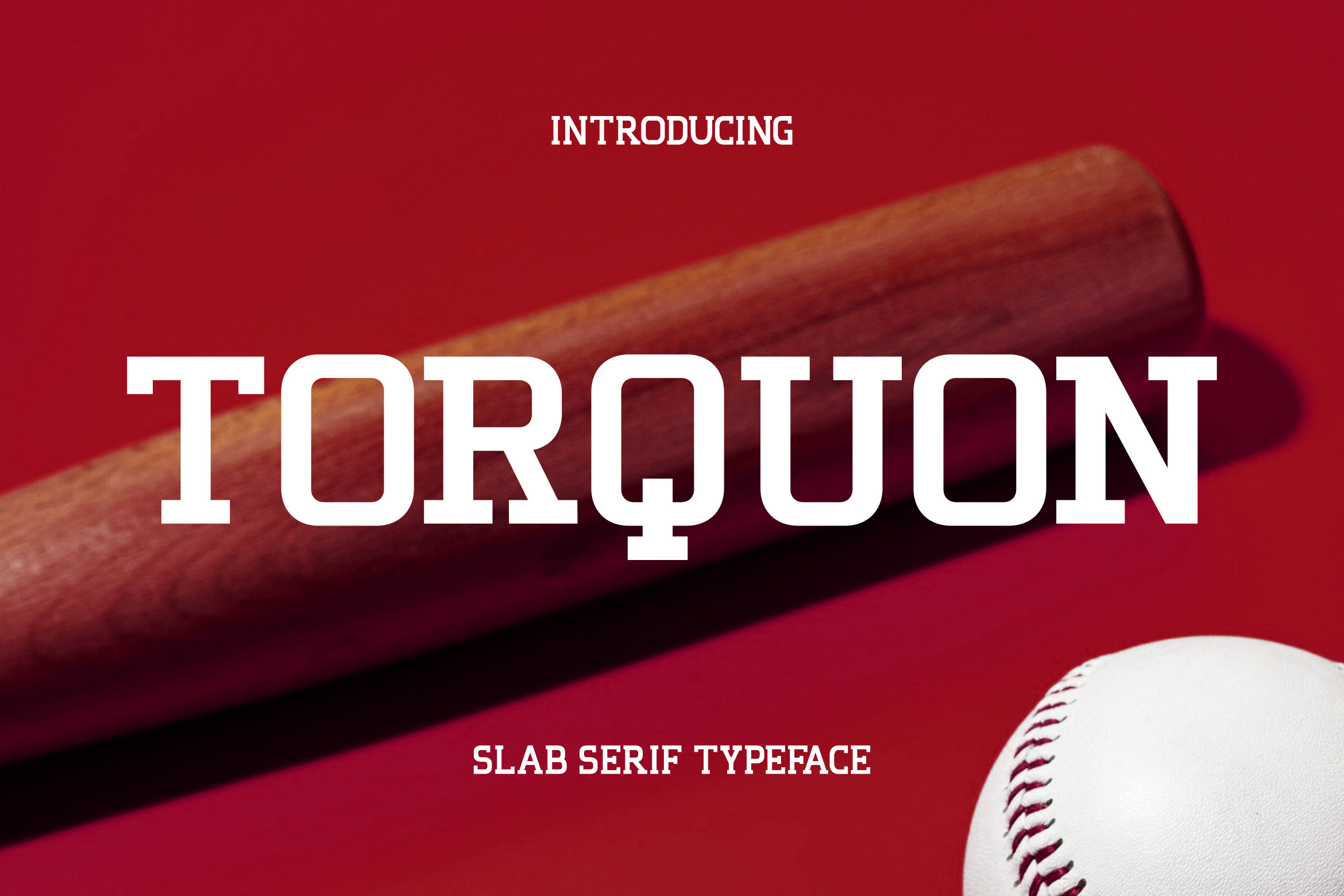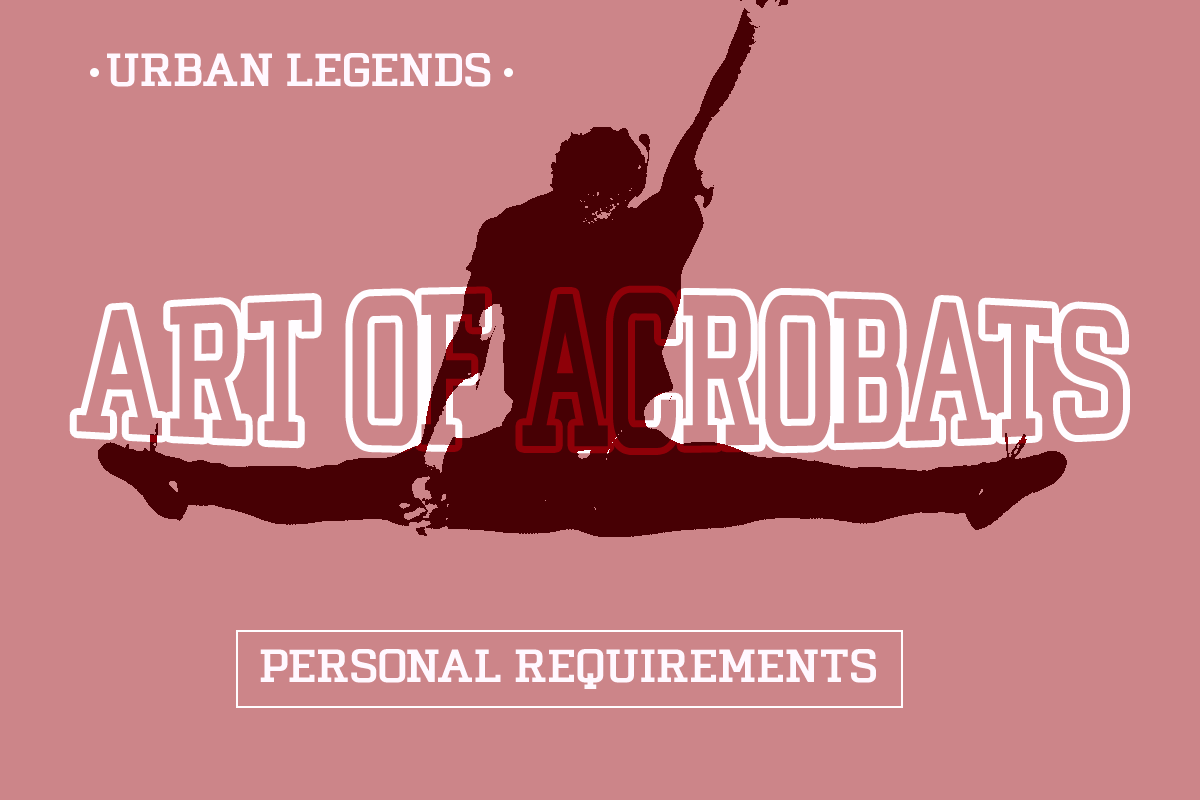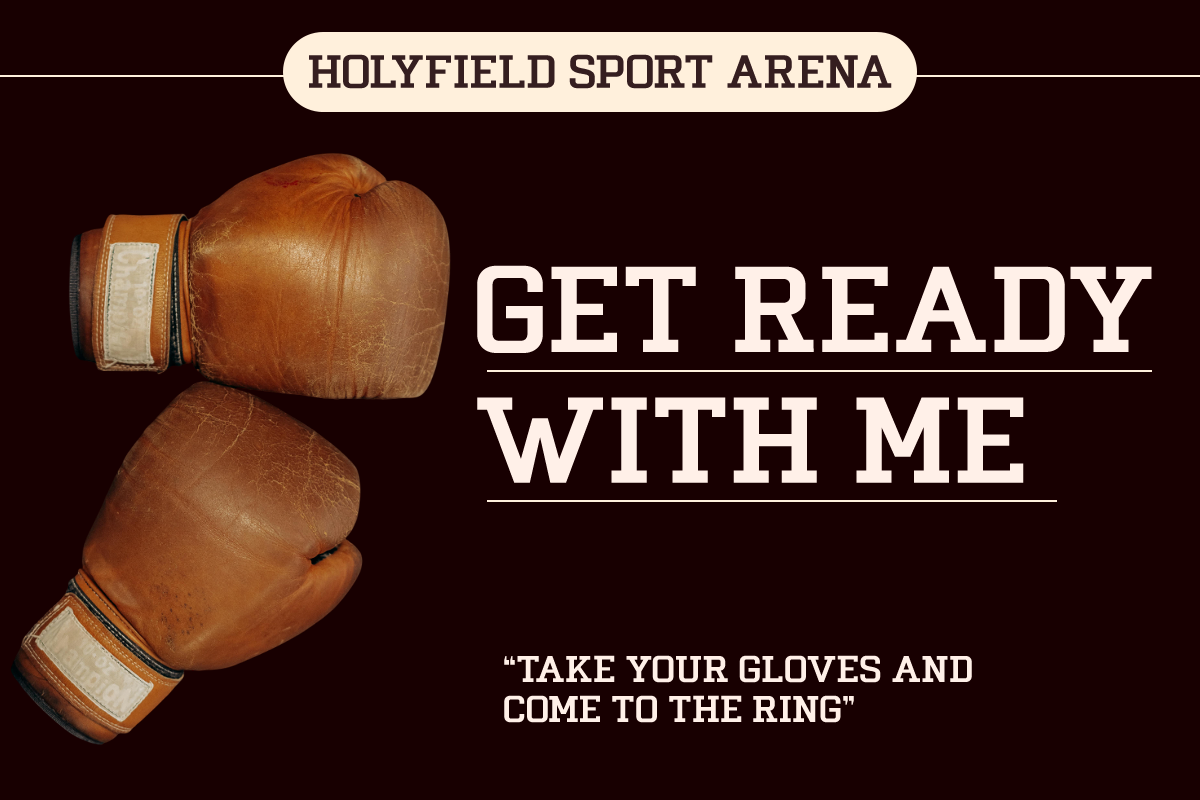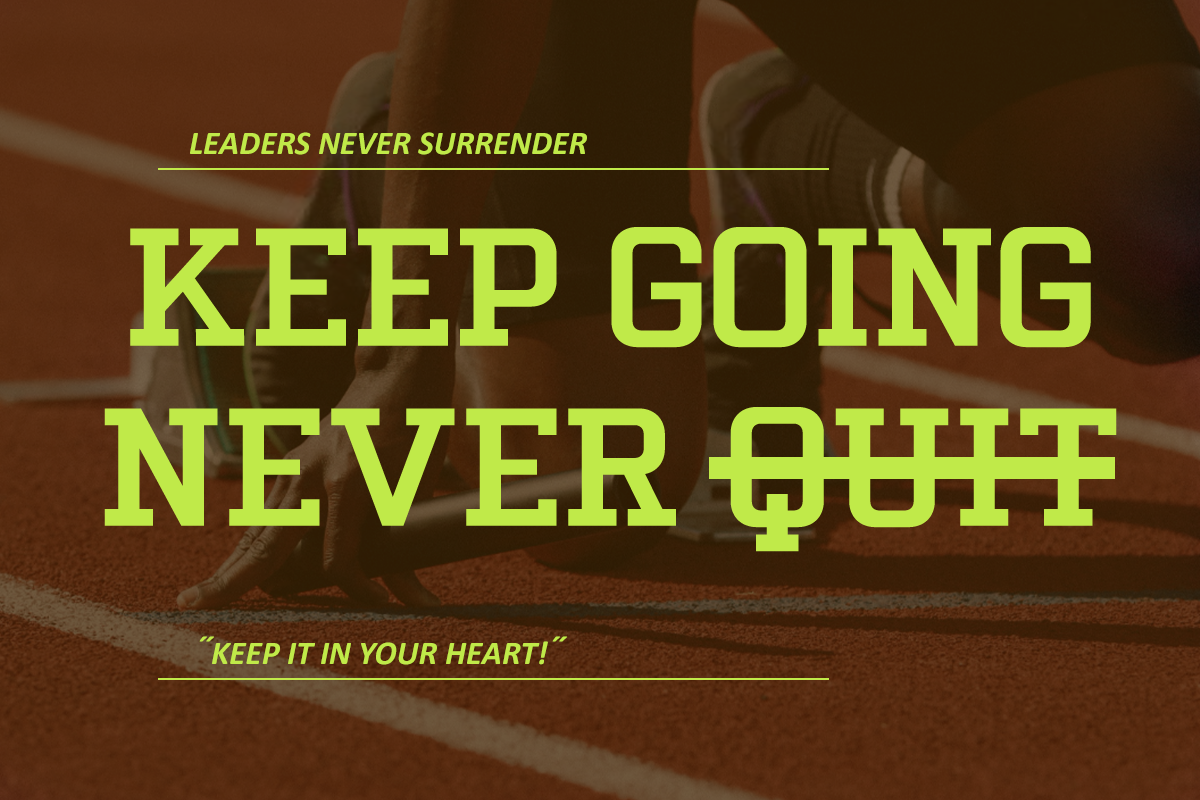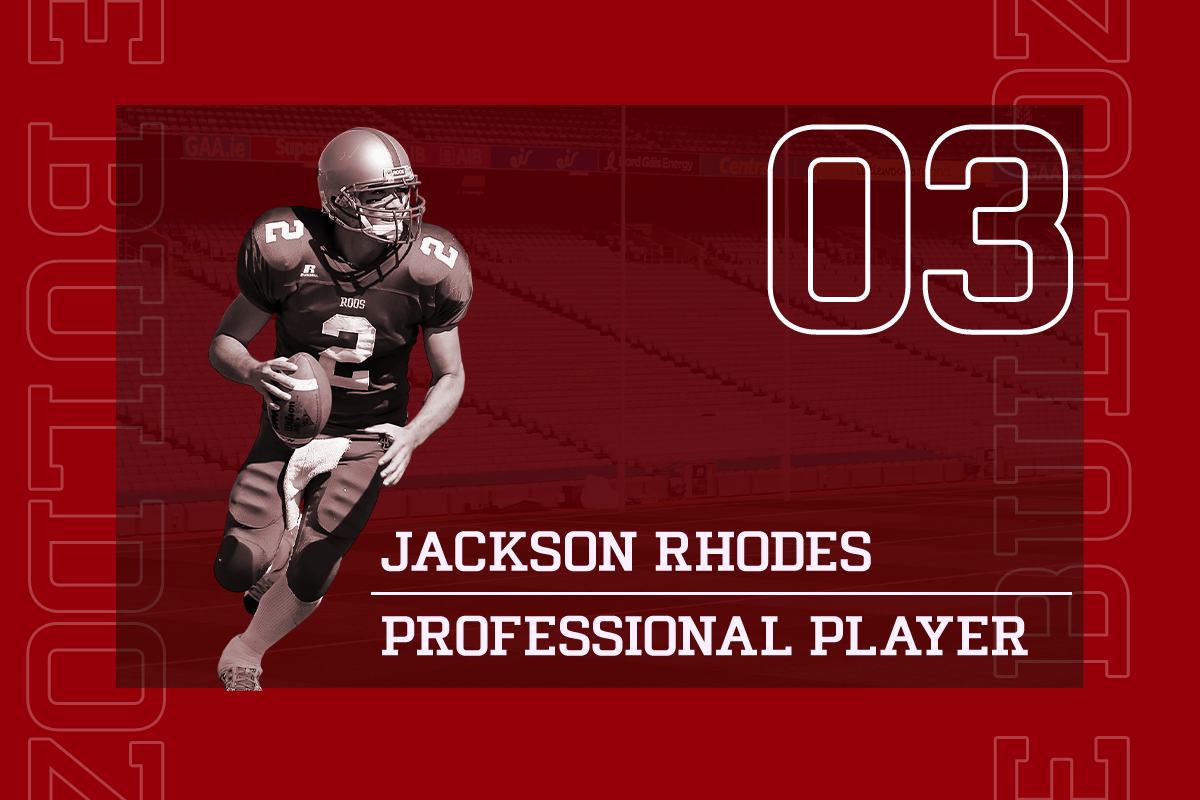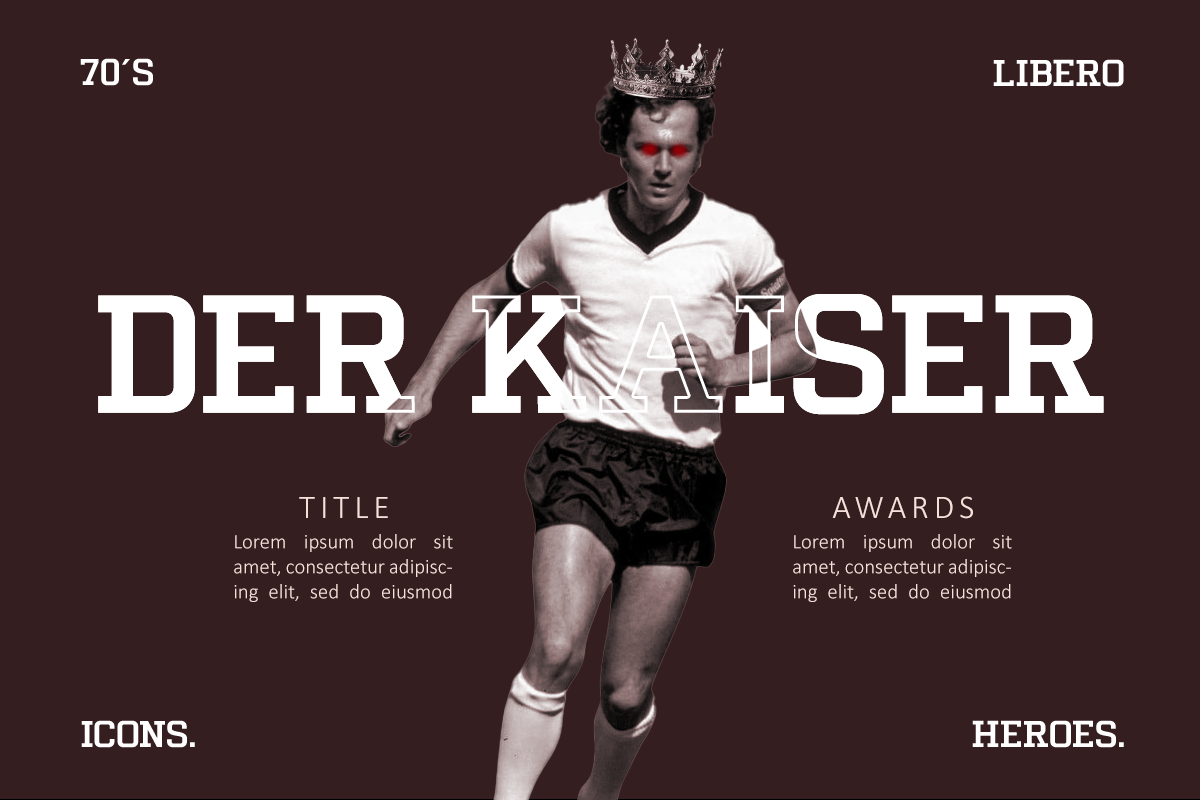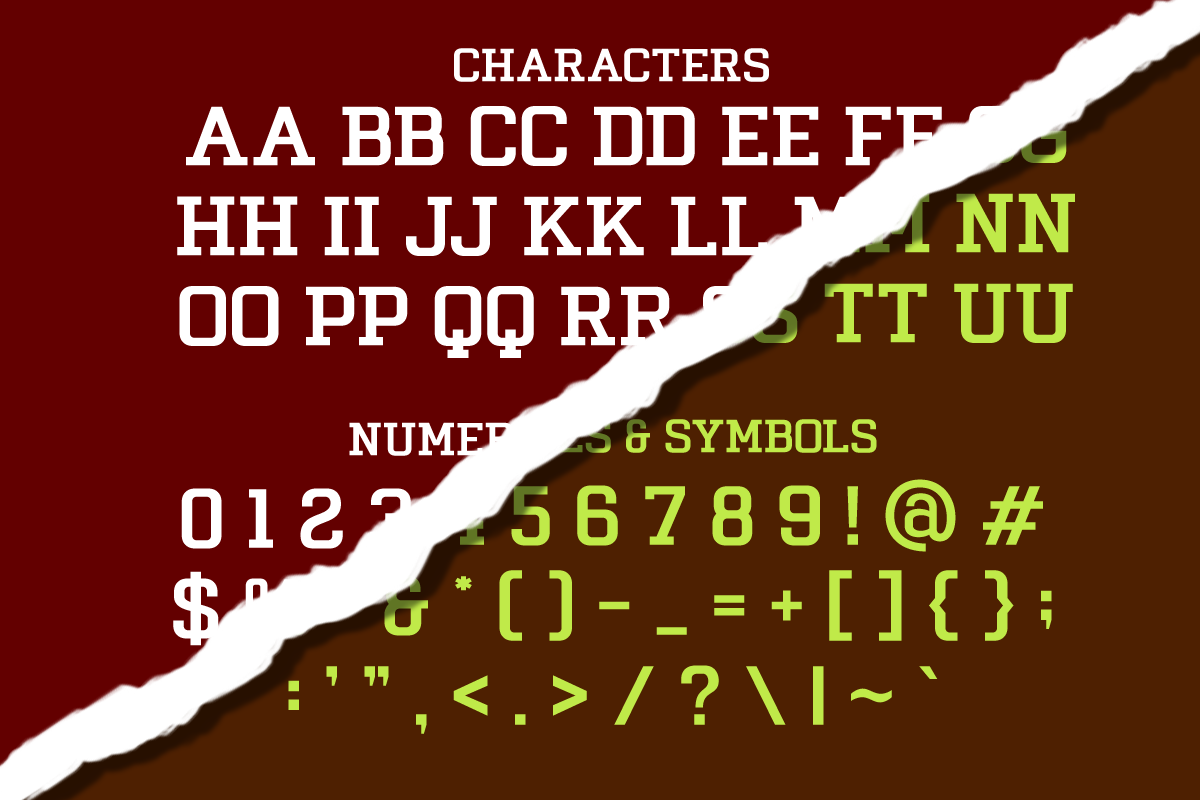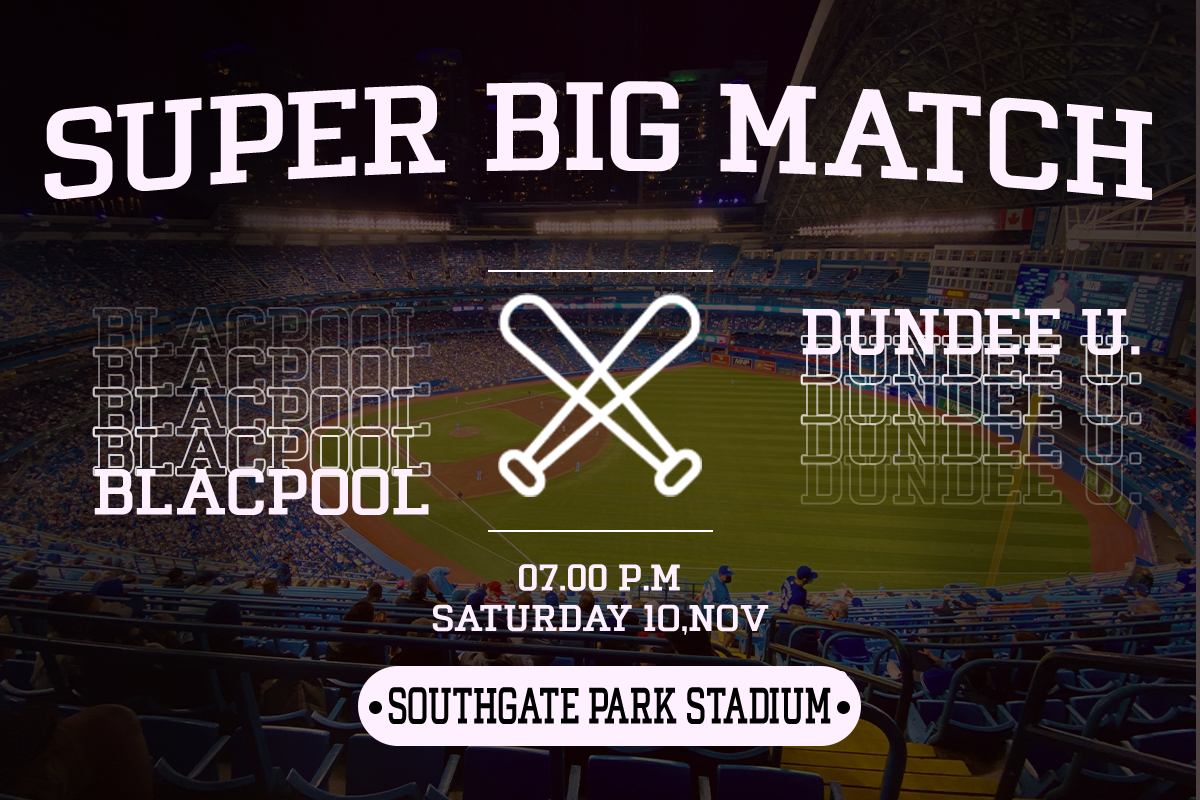
Torquon – Slab Serif Typeface
Torquon is a bold slab serif typeface that captures the essence of sports and collegiate design. Built with robust shapes, angular serifs, and a confident stance, it brings a timeless athletic personality to your typography. The font’s sturdy geometry makes it perfect for bold titles, team logos, and branding that demand presence and power.
With its classic proportions and modern refinement, Torquon bridges tradition and strength — ideal for posters, apparel, and editorial projects seeking a punch of energy and nostalgia.
Font Highlights
Heavy slab serif structure
Uppercase & lowercase letters
Numerals, punctuation, and multilingual support
Balanced proportions and precise slab details
Excellent for sports, retro, and editorial themes
Why Designers Love Torquon
Athletic Strength – Delivers bold confidence for sports and collegiate branding.
Retro Charm – Merges vintage inspiration with modern typographic balance.
Display Precision – Engineered for high-impact headlines and large-scale visuals.
Distinctive Form – Strong slab edges enhance character and recognition.
Relevance and Use Cases
Relevance and Use Cases is perfect for sports teams, retro logos, varsity branding, editorial titles, merchandise design, signage, and vintage-style posters that require a powerful and nostalgic touch.